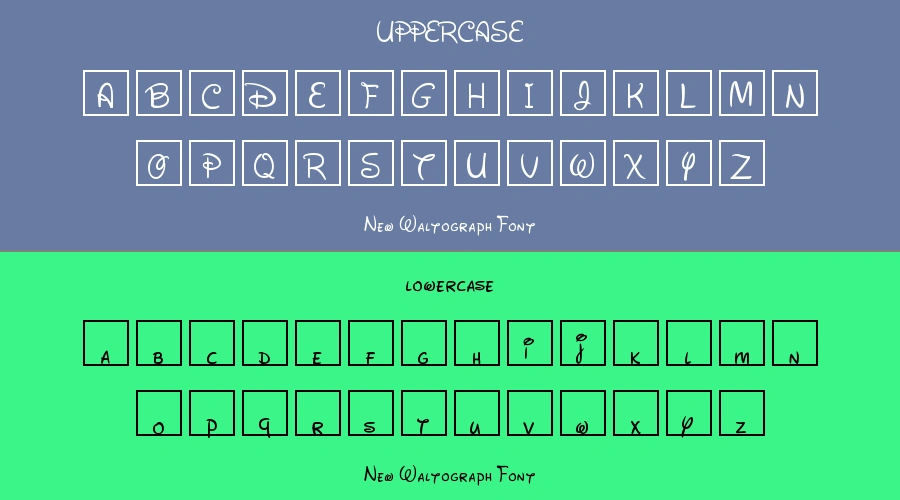
About New Waltograph Font
When typographic excellence matters most, New Waltograph Font delivers through its thoughtful blend of ornamental details and design integrity. Specially crafted for architectural plans, it offers the functionality and professional finish required for sophisticated design work. Every detail serves a purpose.
The character set showcases thoughtful details like flared stems alongside functional expert sets. This proves especially valuable in brand logos, where file optimization directly influences results. Particular attention was paid to stem weight and standards alignment during development.